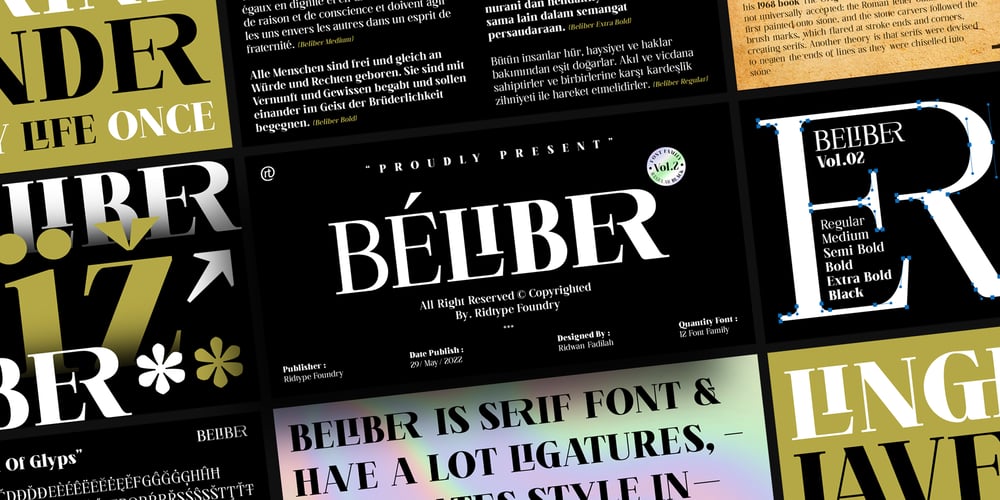
Beliber
Beliber font
Beliber Font Family was designed by Ridwan Fadilah and published by Ridtype. Beliber contains 12 styles and family package options. Beliber is a Serif Font Family, this font is specially designed to get the best feel and high quality to get the touch of a high end productThis font supports Opentype Features, such as Alternate and Ligatures, as well as other forms of support symbols, numeric, mathematical symbols and others characters to be used.Thank you for your support of our product and using it in your project.